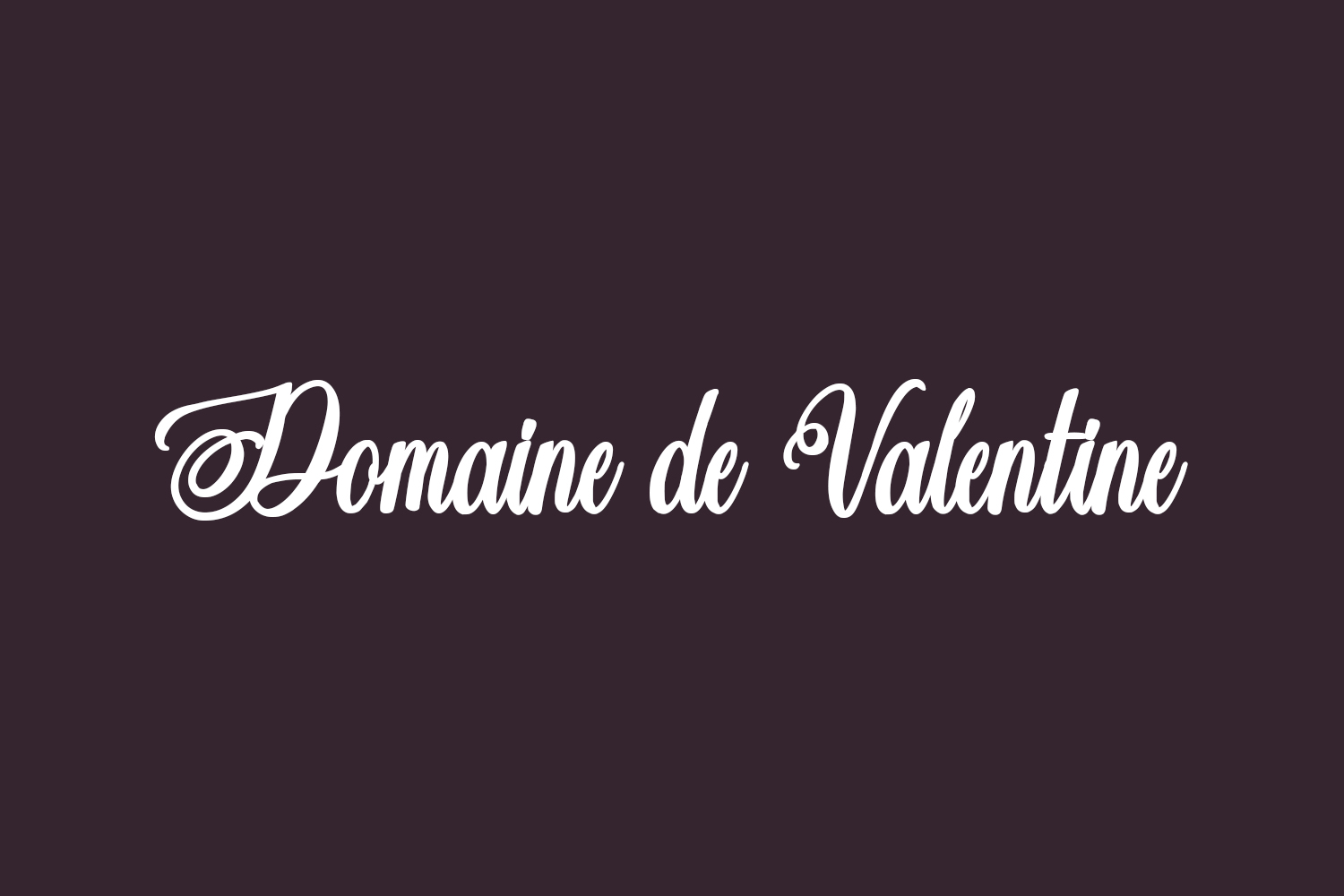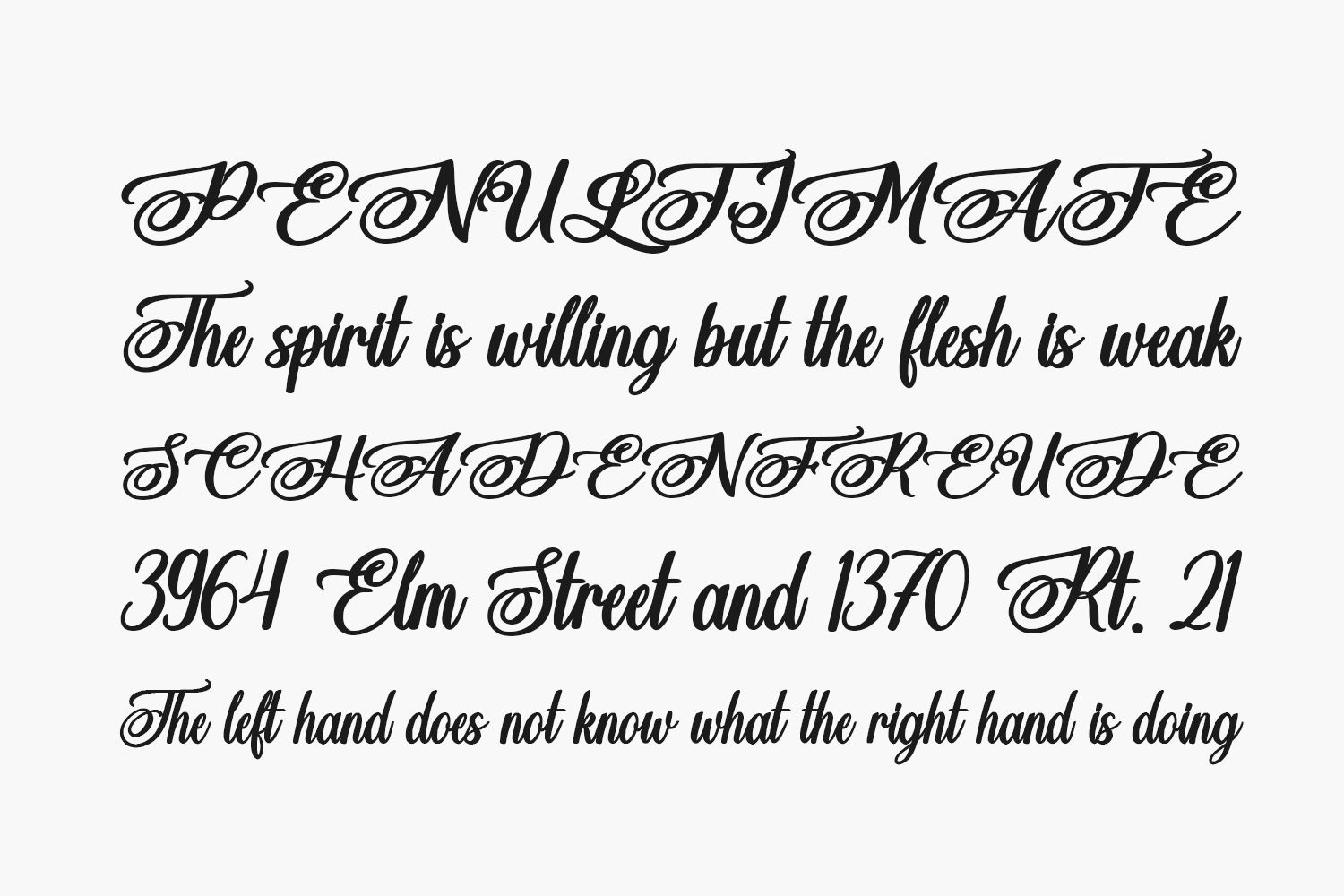
Domaine de Valentine – Free Elegant Calligraphy Font for Romantic Designs
Domaine de Valentine is an elegant calligraphy script font by Octotype that embodies romantic charm and sophistication. Its flowing swashes and refined letterforms are perfect for wedding invitations, stationery, logos, and upscale branding. The free TTF version supports basic Latin characters and is licensed for personal use. Commercial licensing is available directly from the designer. With its timeless elegance, this font adds a heartfelt touch to any project.
Why Choose Domaine de Valentine?
- Romantic Calligraphy: Graceful letterforms with beautiful swashes and delicate curves.
- High-End Aesthetic: Ideal for formal events, luxury branding, and elegant print design.
- Authentic Feel: Handcrafted script style adds a personal, artisanal touch.
Where to Use Domaine de Valentine?
- Wedding Invitations & Stationery: Perfect for save-the-dates, RSVP cards, menus, and place cards.
- Luxury Branding & Logos: Ideal for boutique, perfume, beauty, and lifestyle brands.
- Greeting Cards & Gift Tags: Adds charm and elegance to personal and holiday messages.
- Social Media Graphics: Use in Instagram posts, Pinterest pins, and quotes for a romantic aesthetic.
- Editorial Design: Great for feature headlines, book covers, and elegant layouts.
Design Tips with Domaine de Valentine
Use Domaine de Valentine at medium to large sizes (18pt+) to highlight its elegant swashes. Pair it with a minimalist sans-serif like Montserrat or Lato for body text to provide modern contrast. Soft pastel or neutral color palettes amplify its romantic vibe. Use generous line and letter spacing to let the script breathe, especially in digital formats.